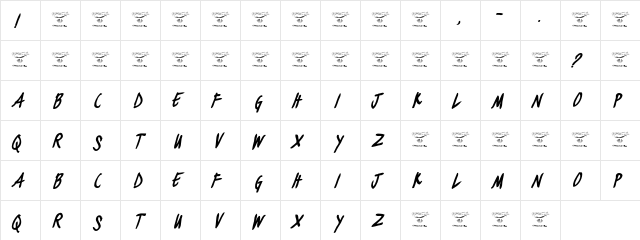
black jacket boys Bold Italic Font Preview
black jacket boys Bold Italic
black jacket boys Bold Italic Font Details
| Foundry | Font Monger |
| Designer | Chris Vile |
Design Context for black jacket boys Typeface
black jacket boys is a composed and adaptable typeface that performs quietly and consistently across a wide range of design contexts. The slanted form adds forward momentum and visual energy. The heavy weight commands attention and anchors typographic hierarchies.
Pro Tip: Try black jacket boys for annotation and caption copy alongside an upright companion — the contrast in angle creates a dynamic but ordered typographic system.